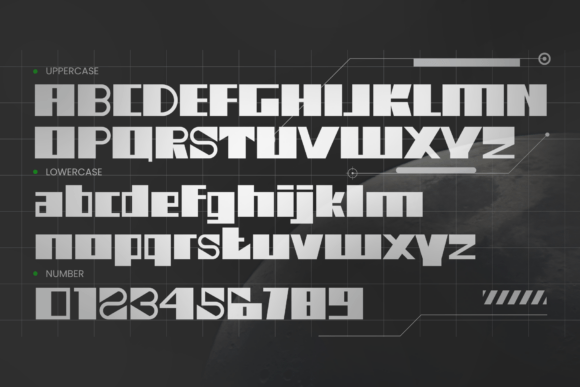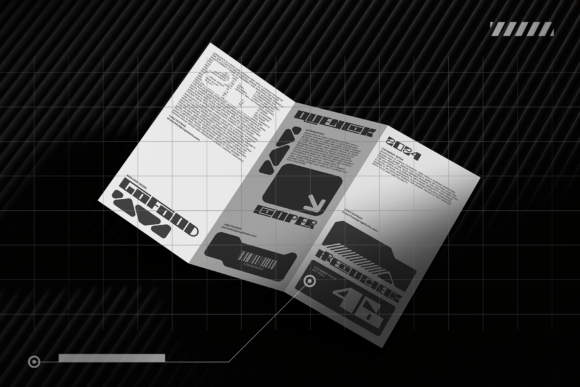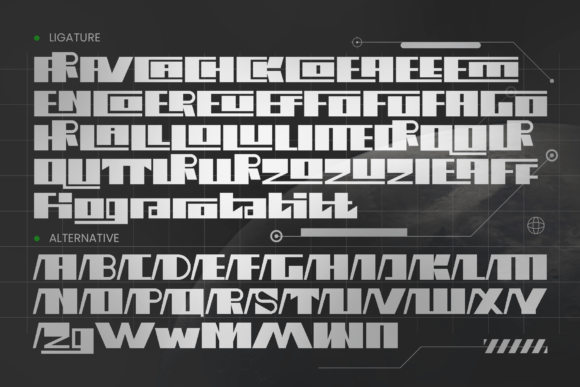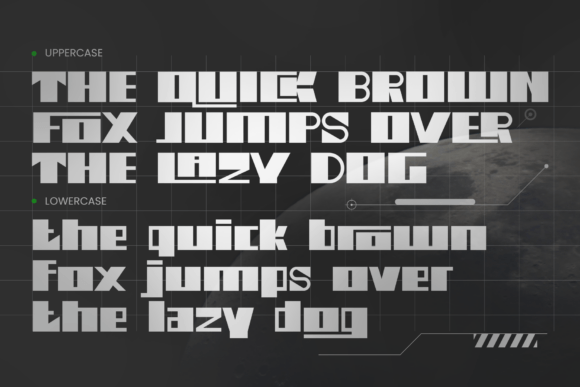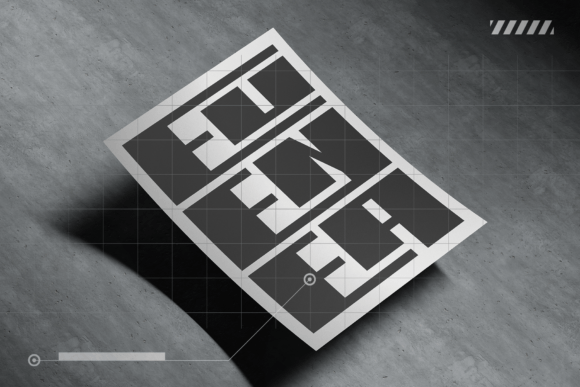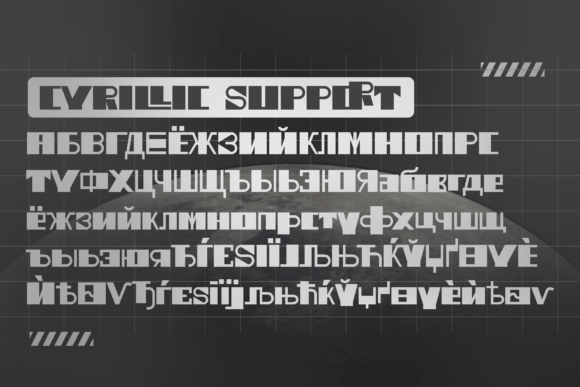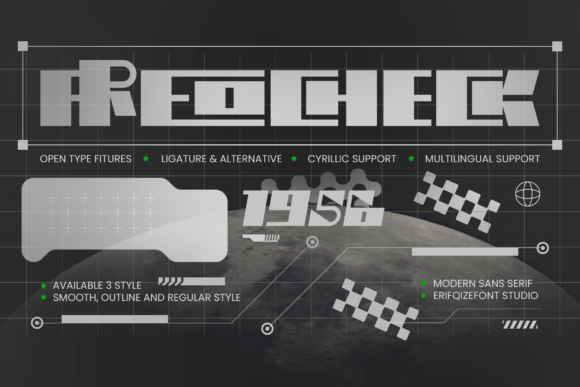
Unlocking the Power of Typography: Exploring the Areocheck Font
Have you ever found yourself staring at a blank page, trying to bring your latest design concept to life? The cursor blinks, and your mind starts racing with possibilities. This is the moment when the right font can make all the difference. For designers, the perfect typeface can elevate a project from good to great, and that’s where the Areocheck Font comes in.
Areocheck Font is a bold and striking font that embodies the spirit of modernity and sophistication. Its geometric design and sharp angles make it perfect for high-energy projects, from branding and posters to digital interfaces. With three versatile styles to choose from – Regular, Smooth, and Outline – designers can experiment with different looks and feels to suit their creative vision.
What sets Areocheck Font apart is its comprehensive OpenType features, which include unique ligatures and alternates. This means designers have the freedom to craft typography that is both functional and artistic, taking their designs to new heights.
Areocheck Font Key Features
- Unique Characteristics: Areocheck Font is a sans-serif font with a futuristic and modern design, featuring clean lines, geometric shapes, and a bold, eye-catching look.
- Font Styles: The font includes 6 different font styles: Regular, Italic, Bold, Bold Italic, Light, and Light Italic.
- Language Support: Areocheck Font supports a wide range of languages, including Latin, Cyrillic, Greek, and many others.
Aerocheck Font Review
I recently had the chance to work with the Aerocheck Font, and I must say it’s an interesting addition to the world of typography. ✨ Here are a few things that stood out to me:
- Unique Design: The Aerocheck Font has a distinct, futuristic feel that’s perfect for science fiction or tech-related projects.
- High-Quality Vectors: The font comes with high-quality vector files, making it easy to resize and use in various applications.
- Good Legibility: Despite its futuristic look, the font is surprisingly easy to read, even at smaller font sizes.
However, there are a few limitations that might make it less suitable for certain projects:
- Limited Character Set: The Aerocheck Font has a relatively small character set, which might make it less useful for projects that require a wide range of characters.
- Not Ideal for Body Text: While the font is great for headlines and titles, it might not be the best choice for body text due to its futuristic feel, which can be overwhelming for long passages of text.
Overall, I think the Aerocheck Font is a great addition to any designer’s toolkit, but it’s essential to use it judiciously and in projects where its unique design will shine. ⚠️ With a bit of creativity and restraint, this font can be a real showstopper.
Areocheck Font is perfect for:
- Modern graphics and designs.
- Professional presentations and reports.
- Editorial and publishing projects.
Tips: Use Areocheck Font to add a touch of sophistication and elegance to your designs.
Alternatives to Areocheck Font for Designers
Open Sans is a clean, modern sans-serif font ideal for body text and digital interfaces. It’s highly legible, making it perfect for long-form content and web applications.
Comparison to Areocheck Font: Open Sans has a more minimalist and straightforward design compared to Areocheck Font’s bold and playful style. While Areocheck Font is great for titles and headings, Open Sans is better suited for body text.